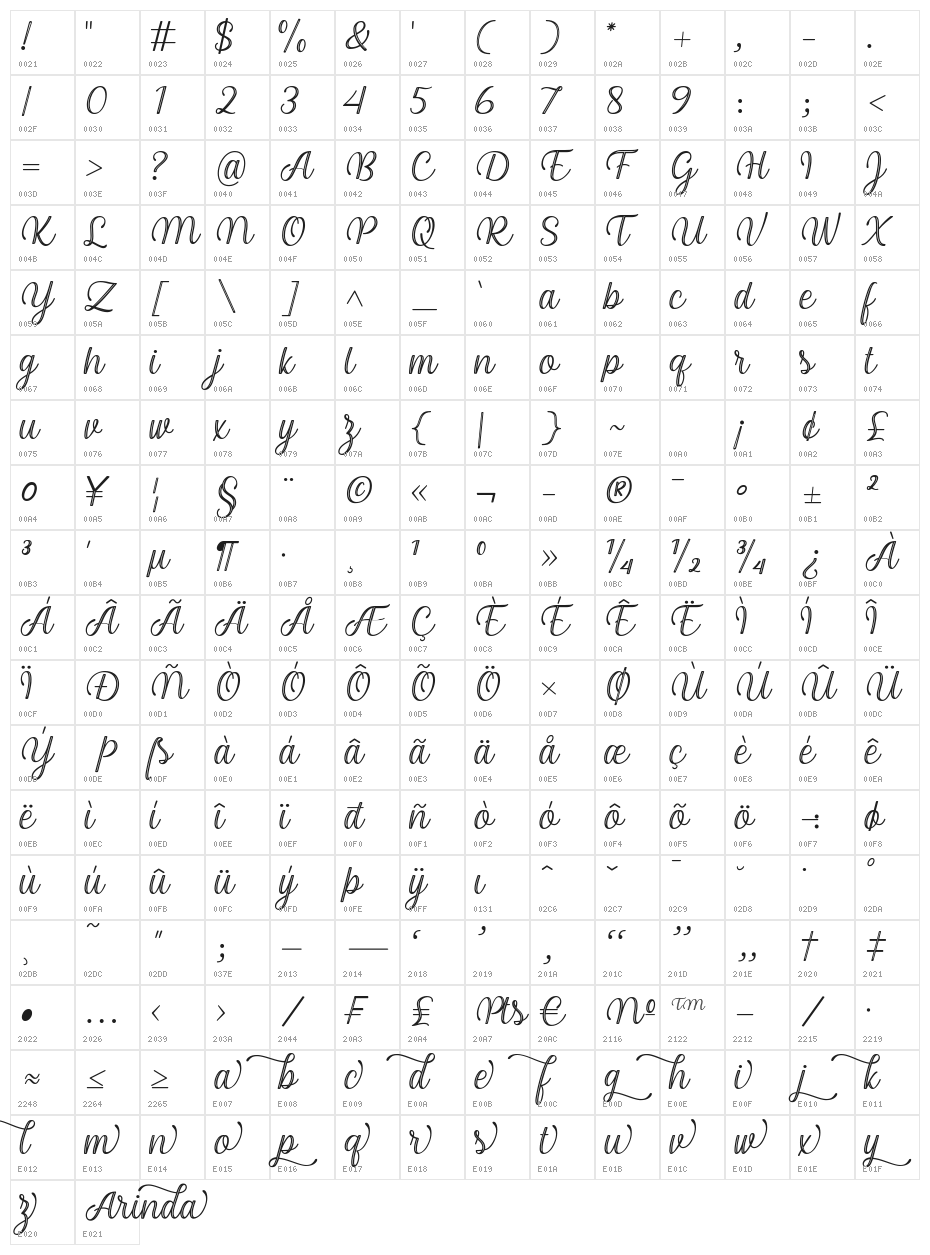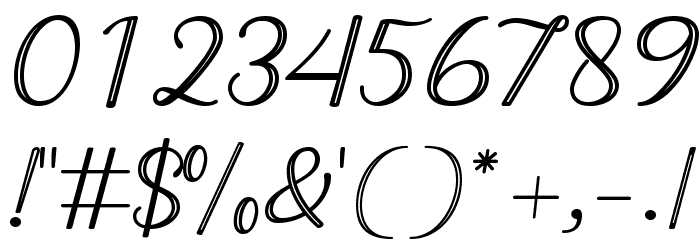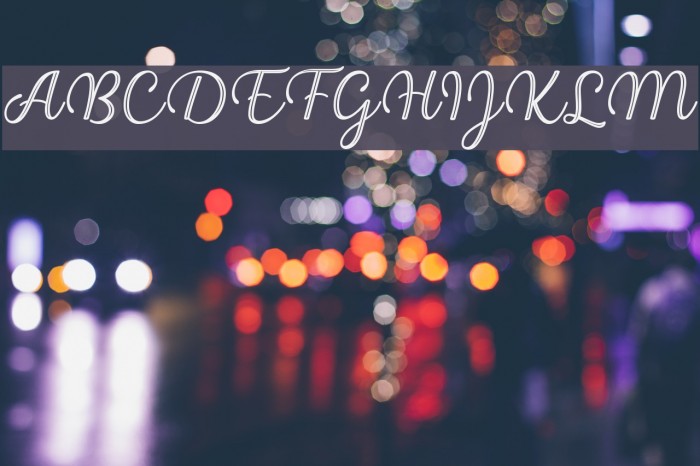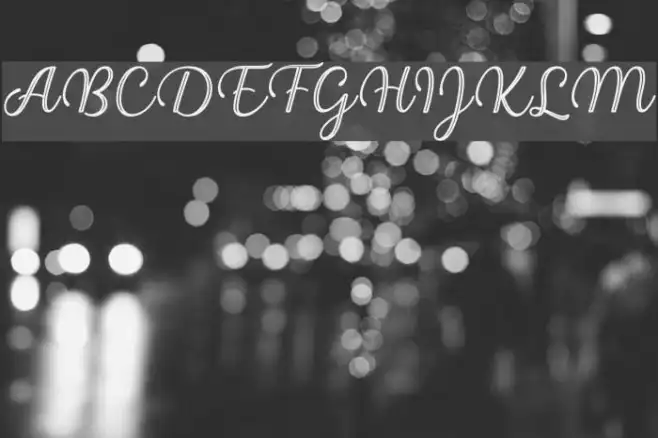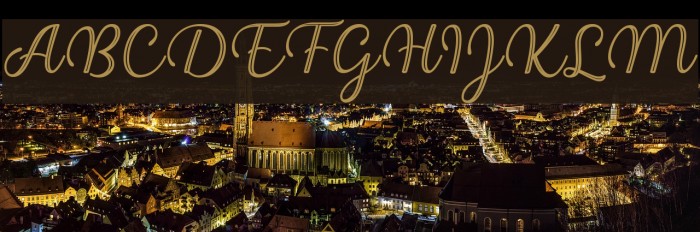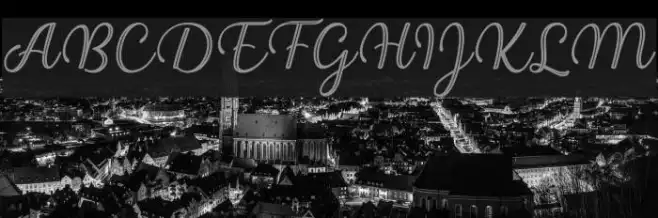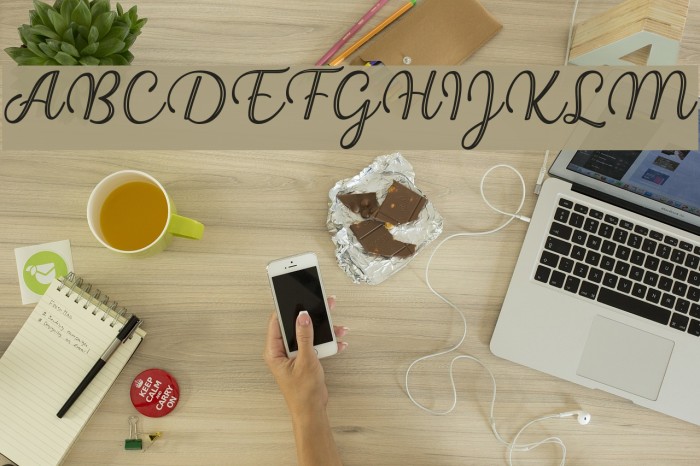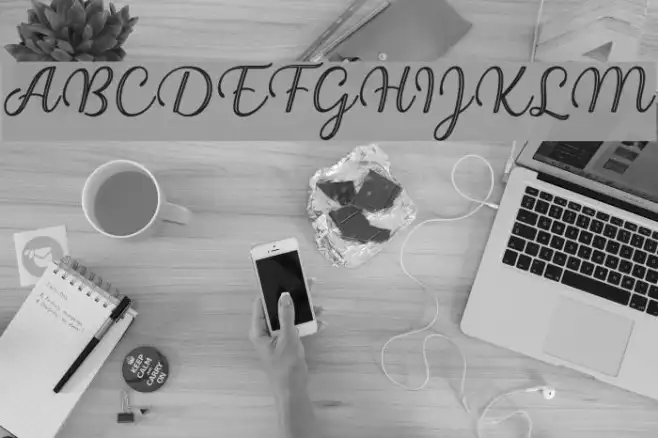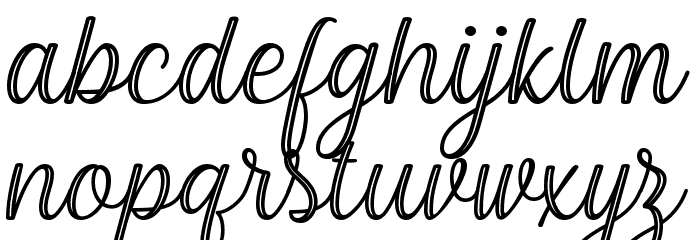
Arinda Font
Arinda Description
This font exudes a sophisticated and elegant script style, characterized by its fluid, cursive strokes and graceful curves. The uppercase letters are slightly more formal, with a consistent slant and smooth transitions between strokes. The lowercase letters maintain a harmonious flow, enhancing readability while preserving the script's artistic flair. The numerals are distinct and clear, matching the overall aesthetic with their rounded forms and gentle slant. Special characters are thoughtfully designed, integrating seamlessly with the alphabetic characters. This font is ideal for projects that require a touch of elegance and personal expression, such as invitations, greeting cards, or branding materials.
| Use Case | Logos, Invitations, Personal stationery |
| Proposed Projects | Ideal for wedding invitations, elegant branding, greeting cards, and personal stationery. |